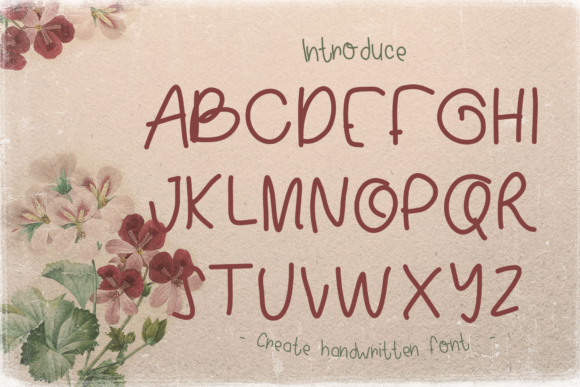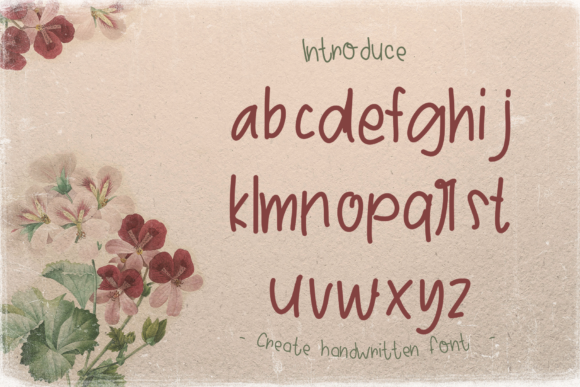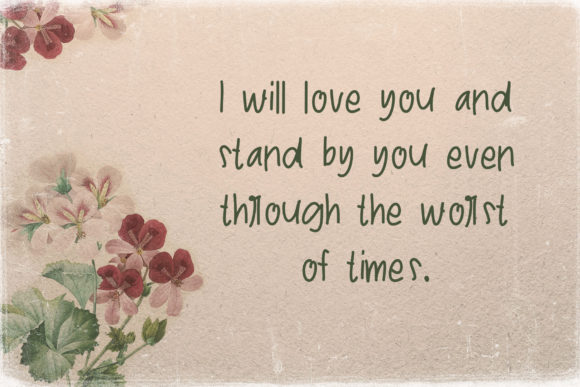
Introducing Brooks Font: The Ultimate Addition to Your Design Arsenal
Are you tired of using the same old fonts in your designs? Look no further! Brooks Font is here to revolutionize the way you approach typography. This cute and quirky handwritten font is the perfect addition to any design project, adding a joyful touch that will make your creations stand out from the crowd.
The Characteristics of Brooks Font
Brooks Font is a beautifully crafted handwritten font that exudes playfulness and charm. Its unique characteristics make it an ideal choice for designers and crafters looking to add a personal touch to their work. With its:
- Quirky letterforms: Each letter is carefully designed to be distinctive and eye-catching, making your text instantly recognizable.
- Handwritten feel: The font’s organic, handwritten texture adds a touch of warmth and personality to your designs.
- High legibility: Despite its playful nature, Brooks Font remains highly legible, ensuring your message is conveyed clearly.
Why Choose Brooks Font?
So, what sets Brooks Font apart from other fonts on the market? Here are just a few reasons why designers and crafters are falling in love with this beautiful font:
- Versatility: Brooks Font is perfect for a wide range of design projects, from branding and advertising to packaging and digital media.
- Emotional connection: The font’s playful, handcrafted feel helps create an emotional connection with your audience, making your designs more relatable and engaging.
How to Use Brooks Font in Your Designs
Ready to add Brooks Font to your design arsenal? Here are some ideas to get you started:
- Branding and logos: Use Brooks Font to create a unique and memorable brand identity that reflects your personality and style.
- Social media graphics: Add a playful touch to your social media posts and stories with Brooks Font.
- Packaging design: Make your products stand out on store shelves with eye-catching packaging featuring Brooks Font.
- Digital media: Use Brooks Font in your website designs, email newsletters, and digital advertisements to add a touch of personality.
Tips and Tricks for Working with Brooks Font
To get the most out of Brooks Font, here are some expert tips and tricks:
- Experiment with colors: Brooks Font looks great in a variety of colors, so don’t be afraid to try out different hues and combinations.
- Mix and match: Combine Brooks Font with other fonts to create a unique and visually appealing typography scheme.
- Pay attention to spacing: Make sure to adjust the spacing between letters and words to ensure your text is easy to read.
In conclusion, Brooks Font is a game-changer for designers and crafters looking to add a touch of personality to their work. With its quirky letterforms, handwritten feel, and high legibility, this beautiful font is sure to make your designs stand out. So why wait? Download Brooks Font today and start creating stunning designs that capture the hearts of your audience!